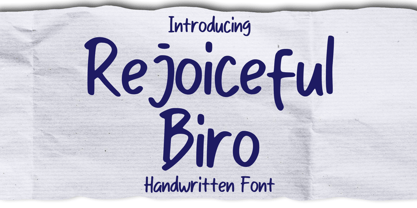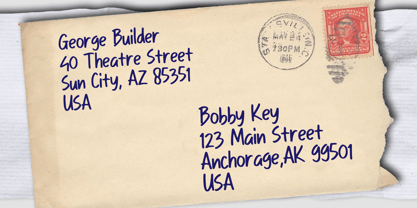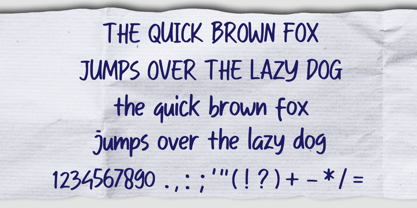
Rejoiceful Biro
by Mvmet
The Rejoiceful Biro Font Family was designed by Gabriel Valentinus and published by Mvmet. Rejoiceful Biro contains 1 styles. More about this family
Rejoiceful Biro is a playful daily use and suitable for everyday use marker pen font. It will elevate a wide range of design projects to the highest level. You can use this font for many design ideas such as stickers, t-shirt designs, amazing logo designs, magazine or book covers, comics, cartoon drawings, and many more. This font will add a super cool touch to your designs!